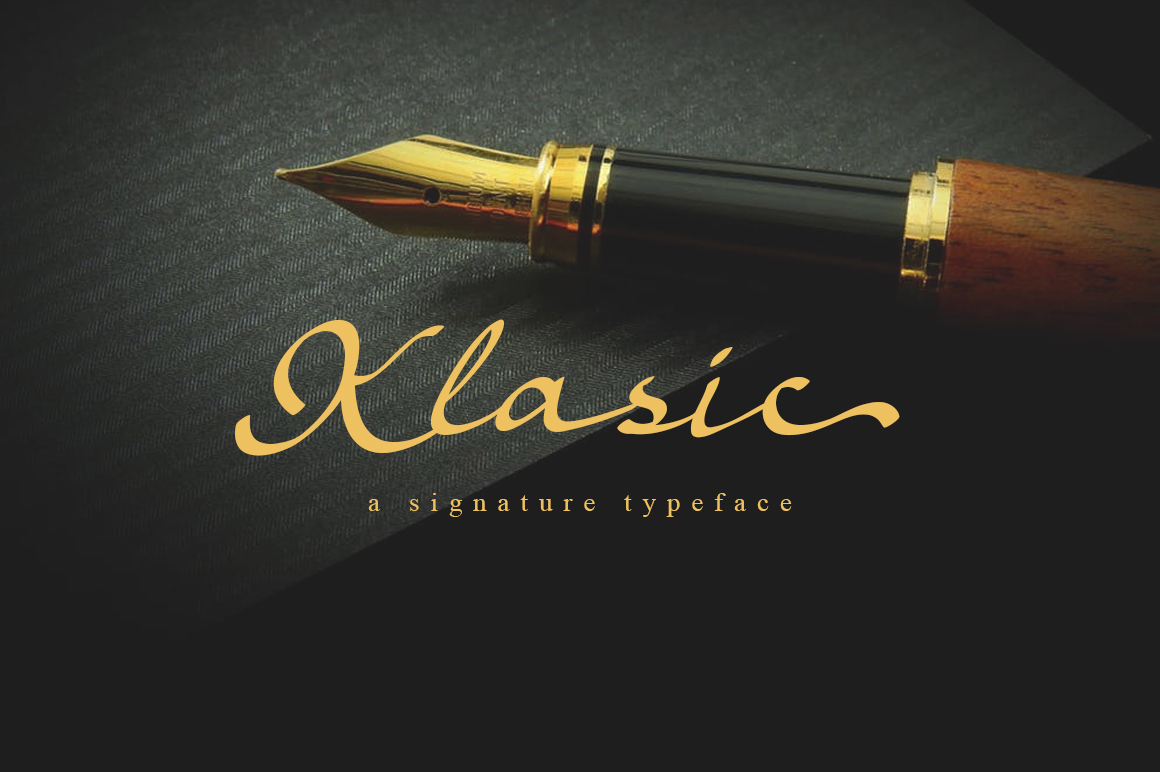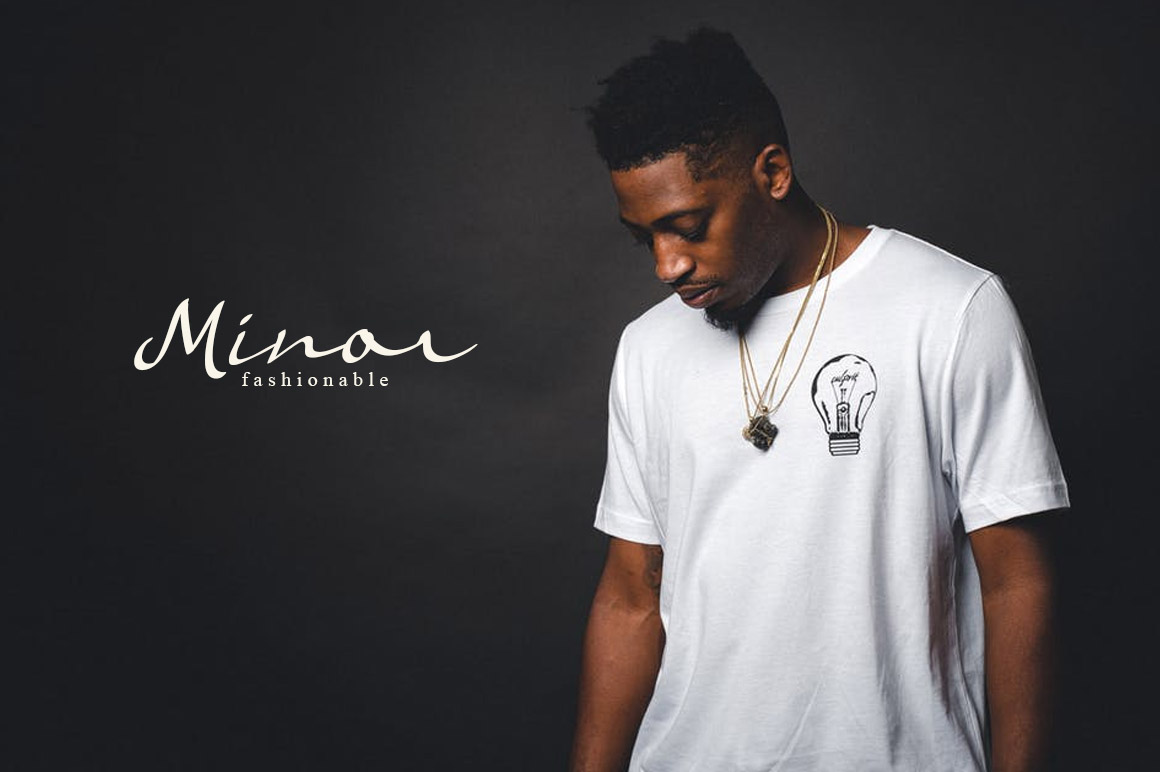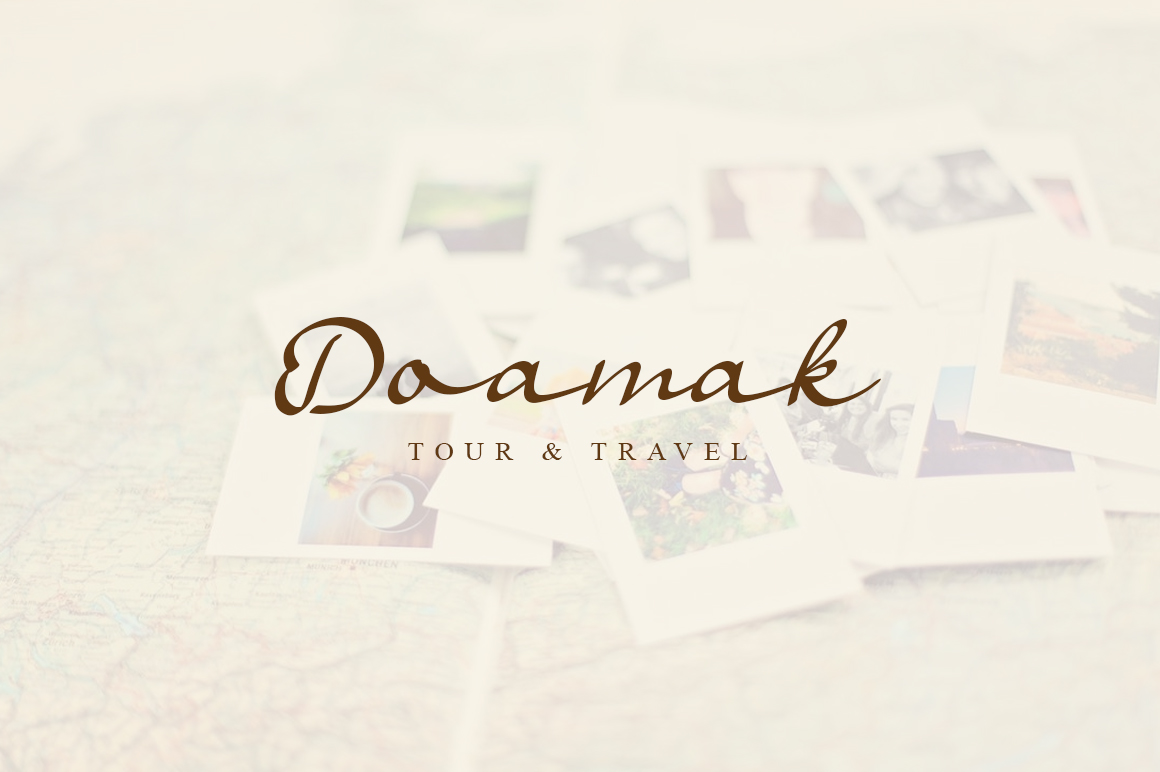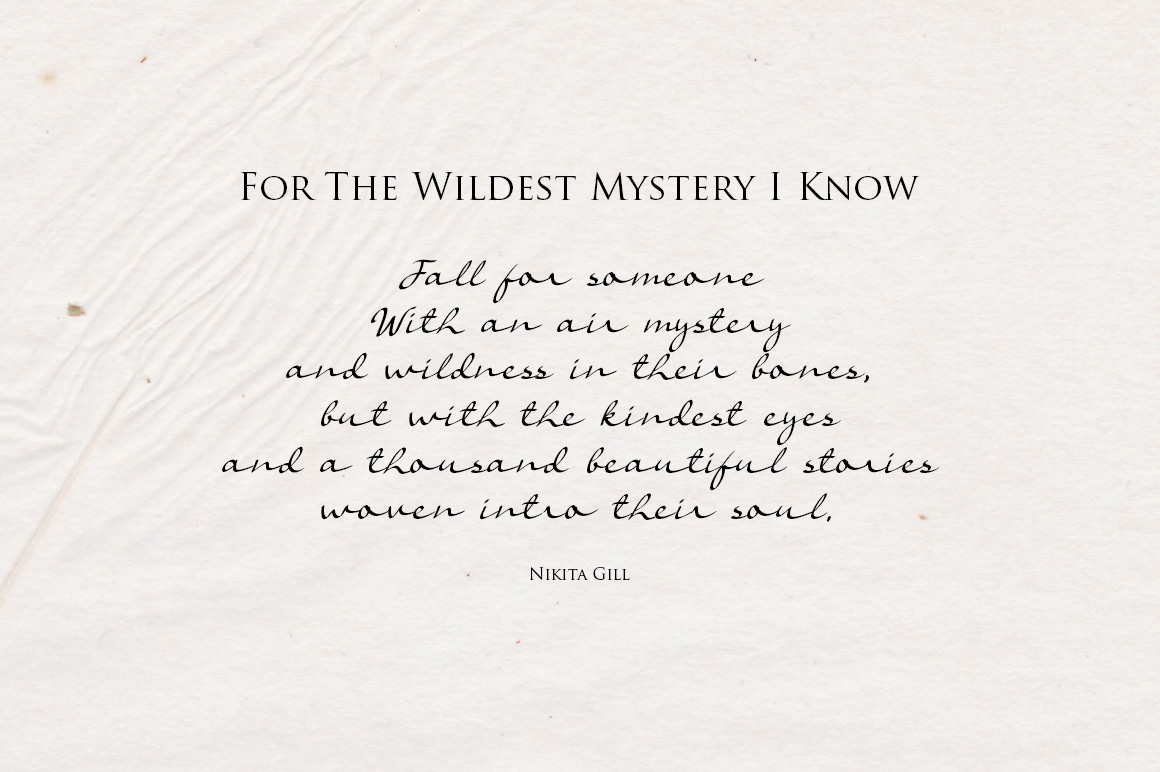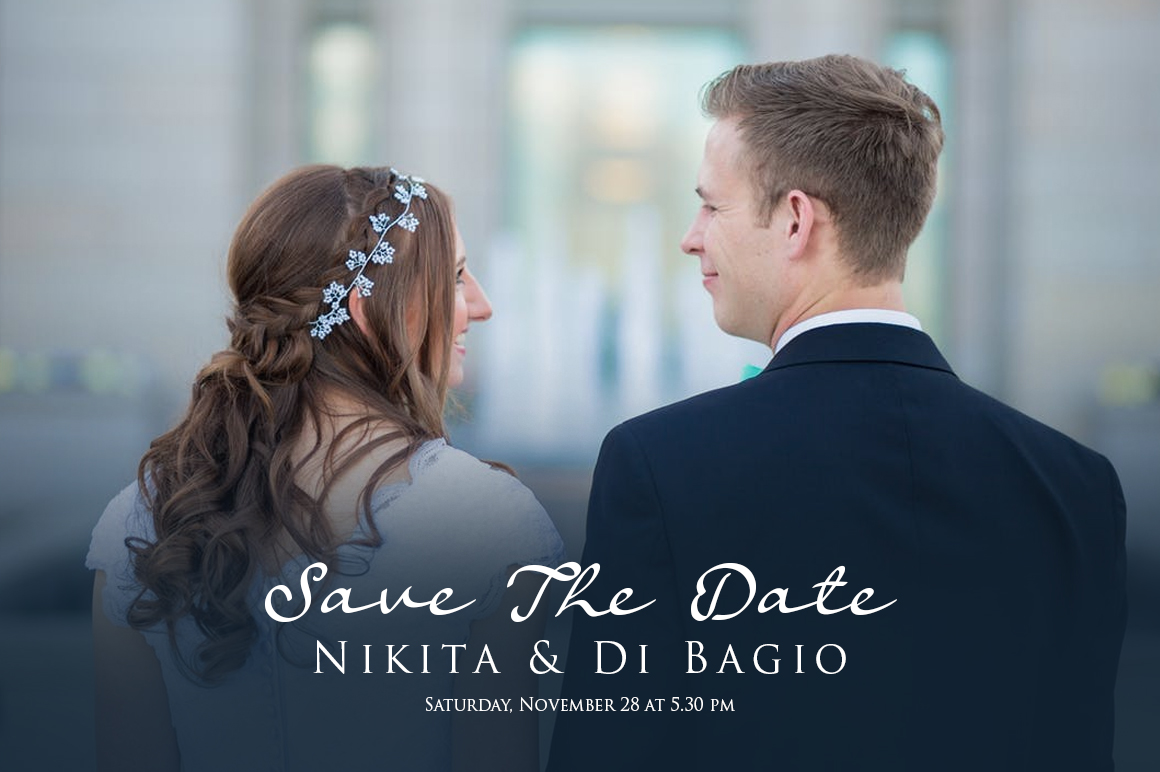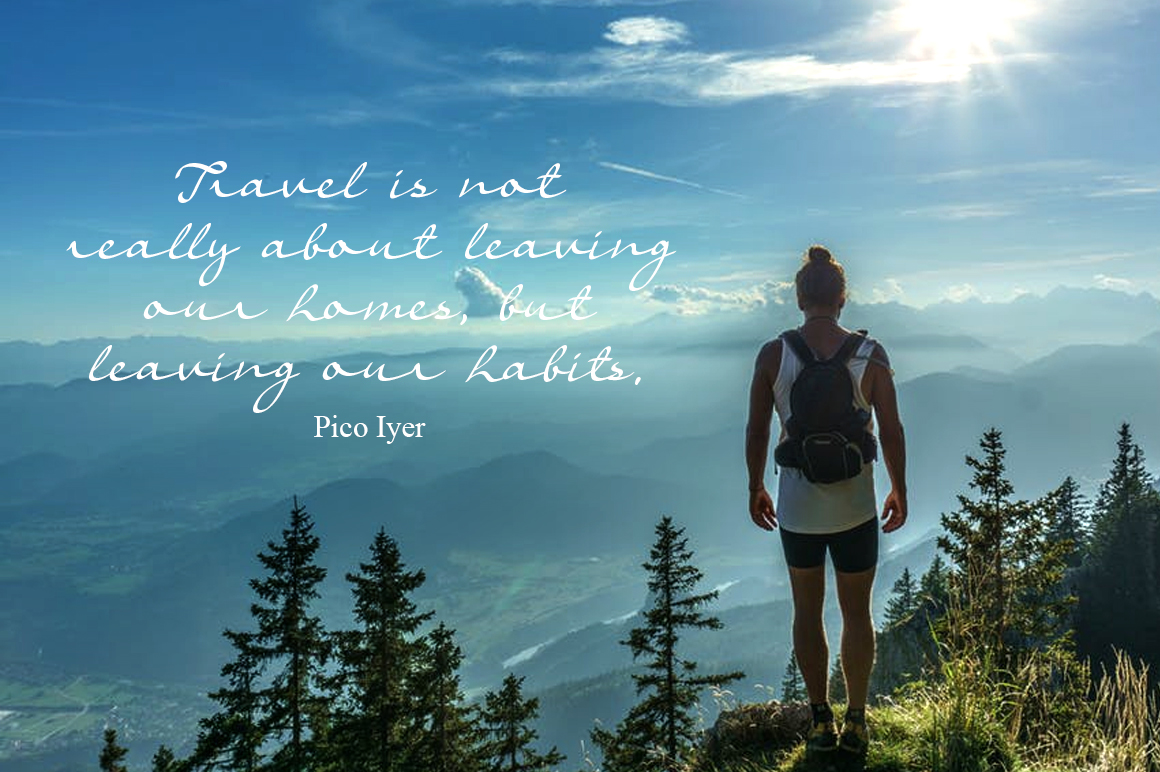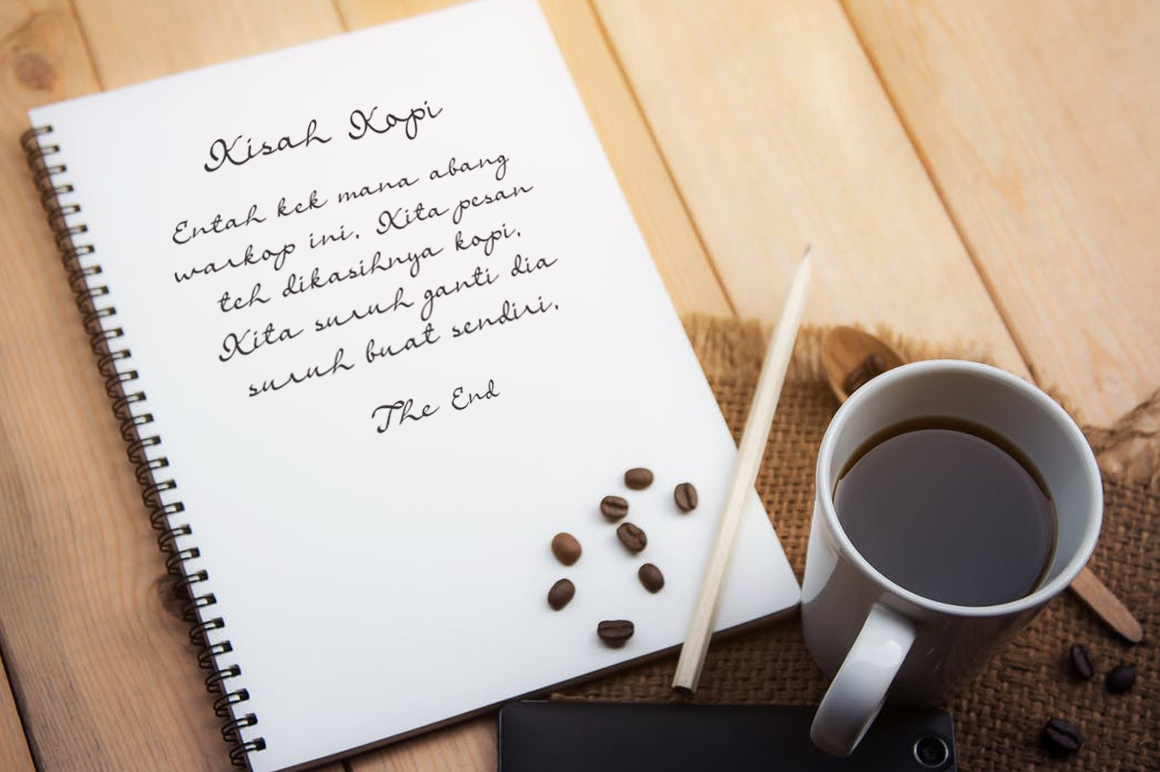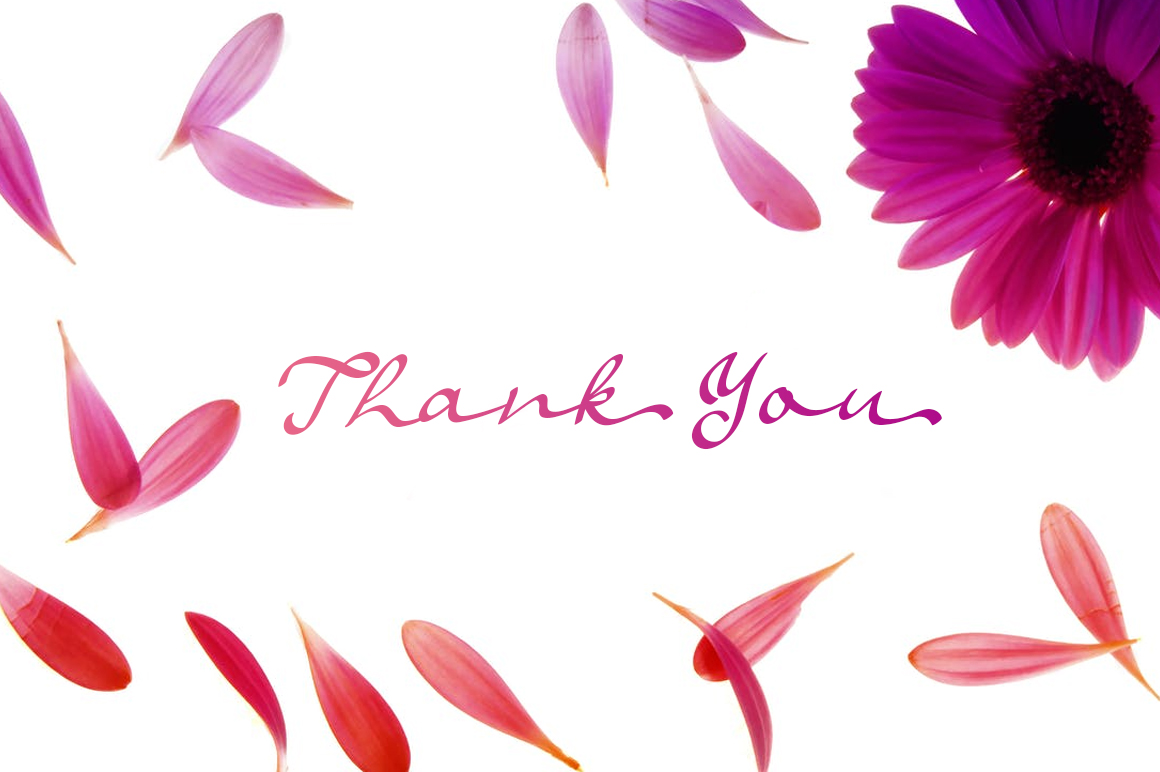
Klasic Script Font
About Klasic Script Font
Klasic Script is a beautiful handmade script font, inspired by vintage calligraphy and fresh, current styles of typeface. Klasic is thick and attention grabbing, making it ideal for signature and display designs.